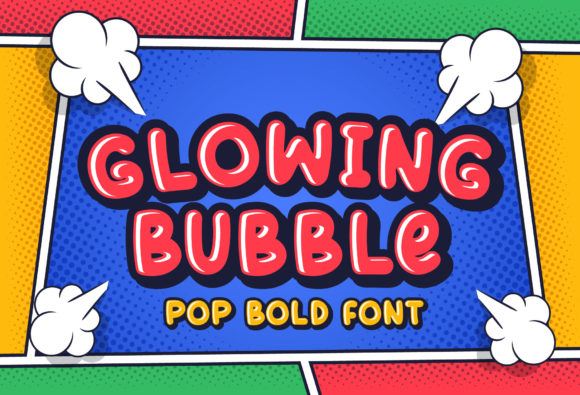
Are you tired of using plain and boring fonts that fail to capture attention? Look no further than Glowing Bubble Font, the ultimate solution to elevate your designs and make them stand out from the crowd! This captivating and retro font is guaranteed to add a touch of nostalgia and excitement to any project.
Designed by the talented Eifets, Glowing Bubble Font is a display font that embodies the essence of comic books and brings them to life in a whole new way. With its bold and eye-catching appearance, this font will instantly transport your audience back to the golden age of comics, where superheroes and villains leapt off the pages.
Imagine the impact you can create with Glowing Bubble Font on your next poster design. The bold and vibrant letters will grab attention and ensure your message is impossible to ignore. Whether you're advertising an event, promoting a product, or simply sharing your creative vision, this font is your secret weapon to making a lasting impression.
But it doesn't stop there! Glowing Bubble Font is also perfect for branding projects that require a touch of playfulness and fun. Give your logo a unique and memorable twist by incorporating this retro gem. Your brand will instantly become synonymous with creativity, originality, and a sprinkle of retro charm.
What sets Glowing Bubble Font apart from other fonts on the market is its ability to evoke emotion and nostalgia. It taps into the collective memory of comic book enthusiasts and brings back a sense of joy and wonder. Whether you're a professional designer or a hobbyist, this font will awaken your inner child and inspire you to create extraordinary artwork.
Don't settle for average when you can have exceptional. Glowing Bubble Font is the best font for comic book enthusiasts and anyone looking to add a touch of retro charm to their designs. Its versatility and captivating nature make it a must-have in your font collection.